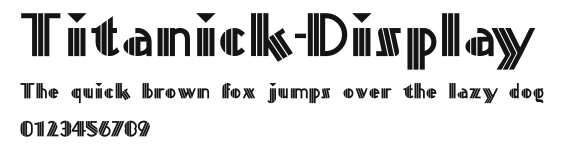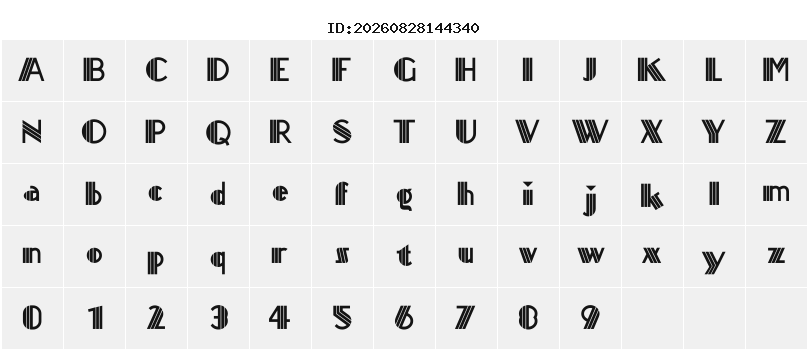
• Font Name: Titanick-Display
• Full Font Name: Titanick-Display
• PostScript Name: Titanick-Display
About Titanick-Display.ttf
Titanick-Display.ttf is a modern, elegant sans-serif font designed for ultimate readability and visual harmony. Perfect for branding, headlines, web design, and print materials.